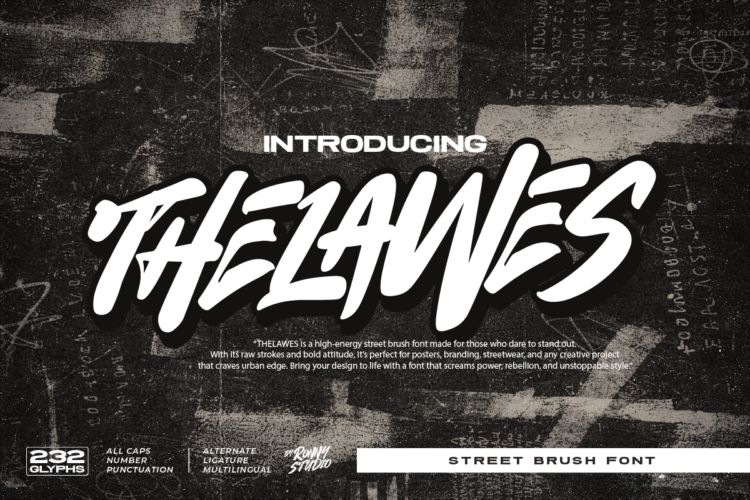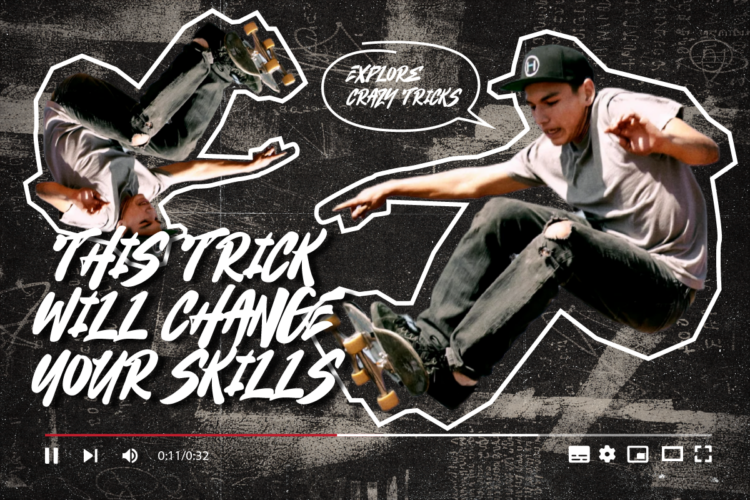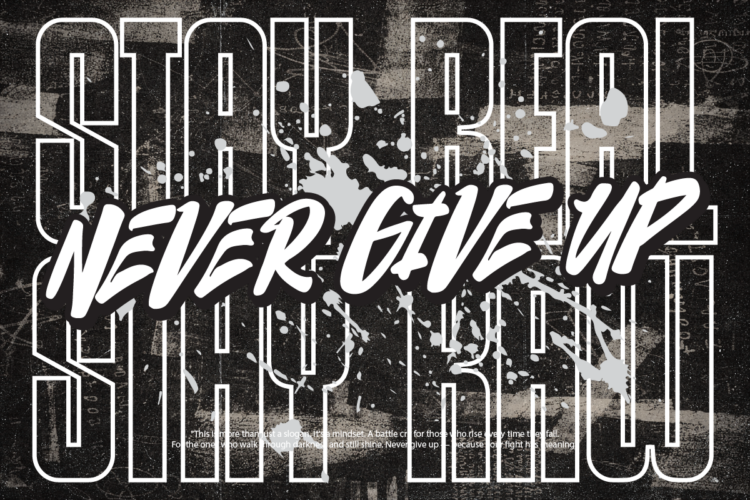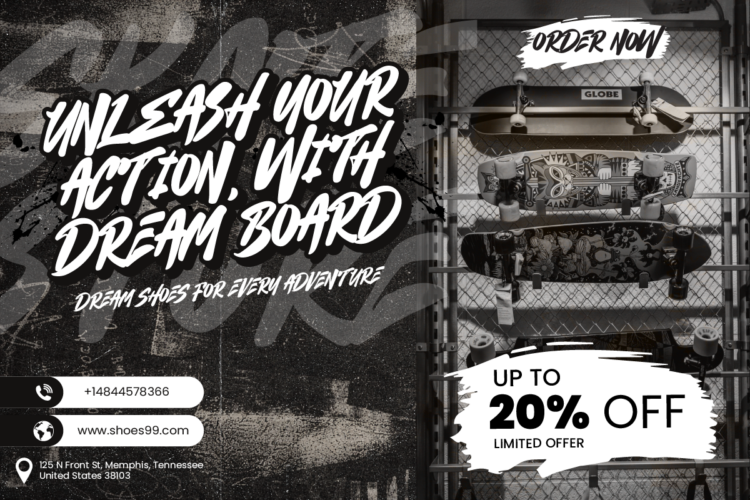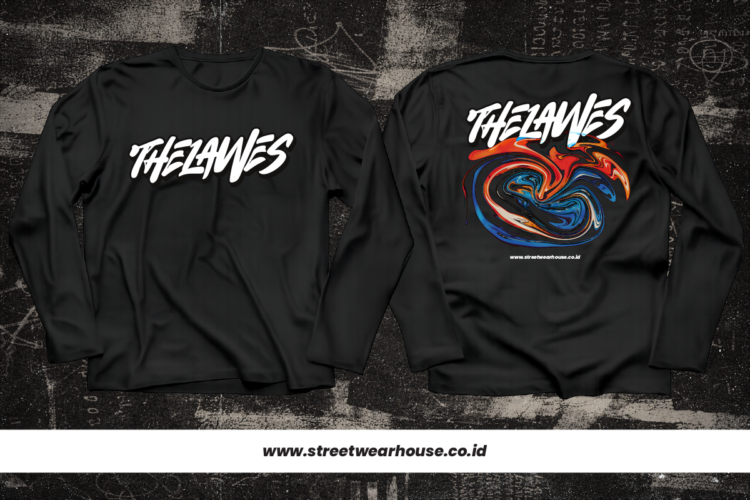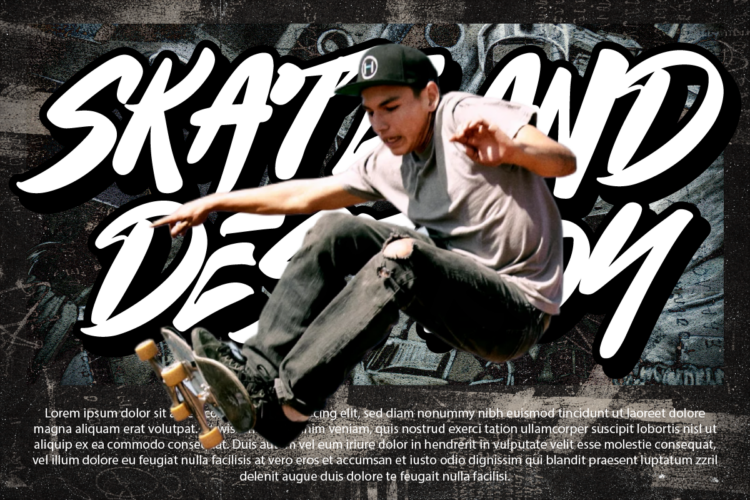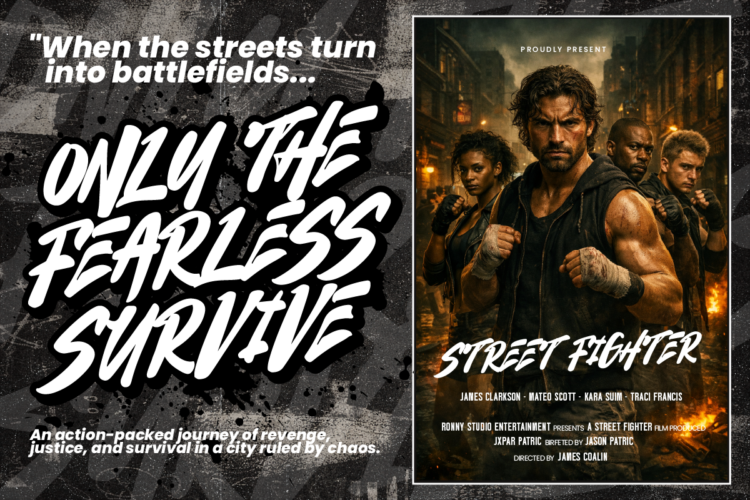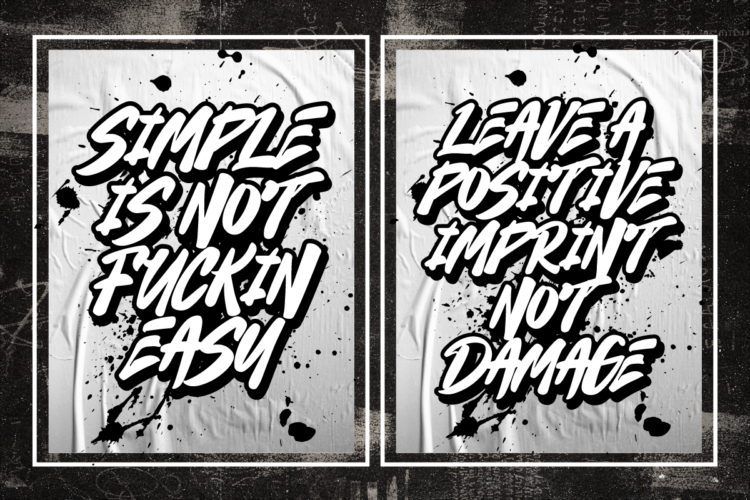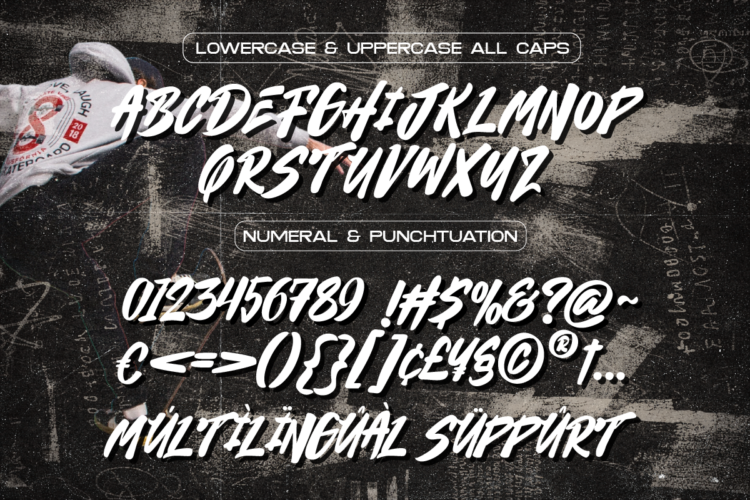
Thelawes
Street brush font Thelawes is a bold urban typeface inspired by graffiti and skate culture. This street brush font delivers strong strokes and raw energy for powerful visual impact.
This street brush font is perfect for logo design, branding, posters, album covers, merchandise, and packaging. The expressive brush texture creates a modern and rebellious style that stands out.
Designers can use this street brush font for urban branding, music promotion, social media graphics, and street-themed projects. The characters are carefully crafted to keep balance and readability while maintaining an authentic hand-drawn look.
## Street Brush Font Features
– Hand-drawn brush style
– Uppercase and lowercase letters
– Numbers and punctuation
– Multilingual support
– PUA encoded
## Perfect for Logo and Branding
This street brush font works great for bold logo design, creative branding, posters, editorial layouts, album artwork, stickers, and digital content.
If you need a strong and expressive street brush font, Thelawes is ready to elevate your design projects.
Thelawes – Street Brush Font